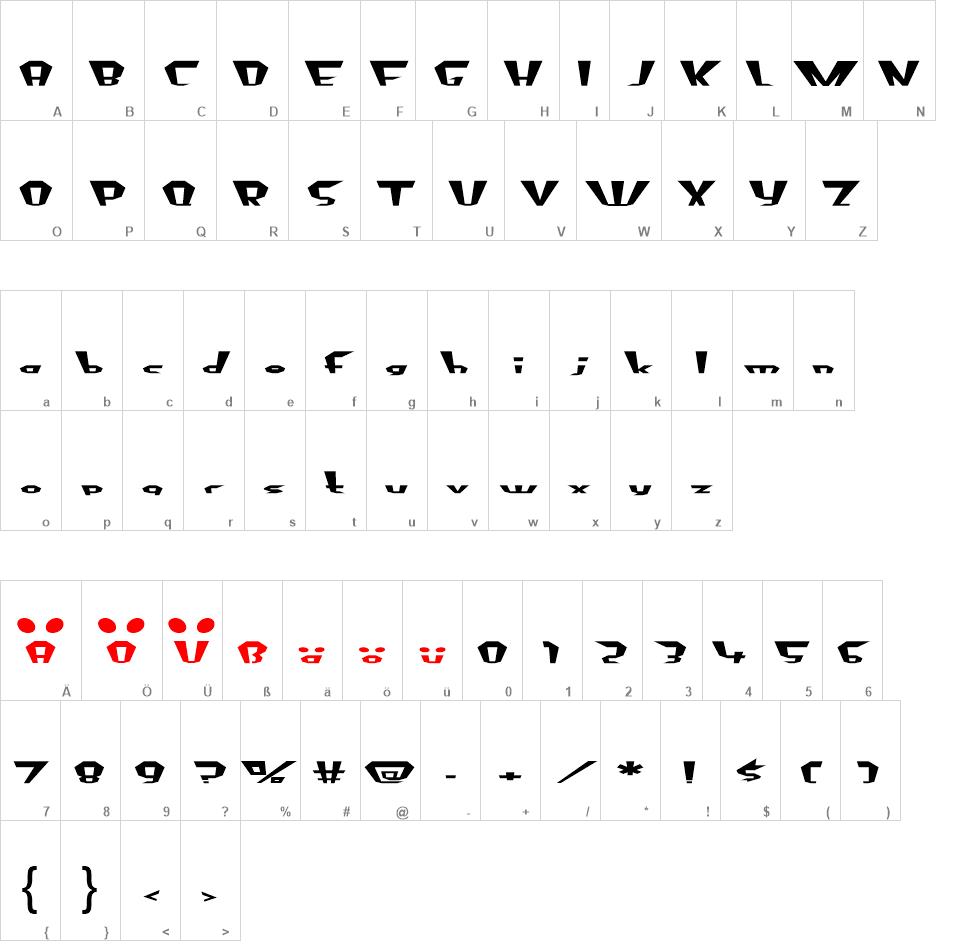
Fluoride Beings
Fluoride Beings is a big-headed alien font from the moon. This font includes a license that allows free commercial use: sometimes referred to as a desktop license. This allows you to install the font on a computer and use it to create posters, web graphics, game graphics, t-shirts, videos, signs, logos and more. Read the license agreement for details.